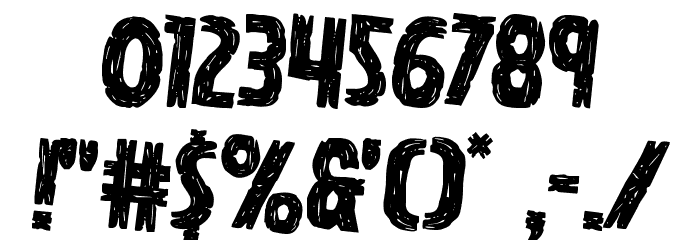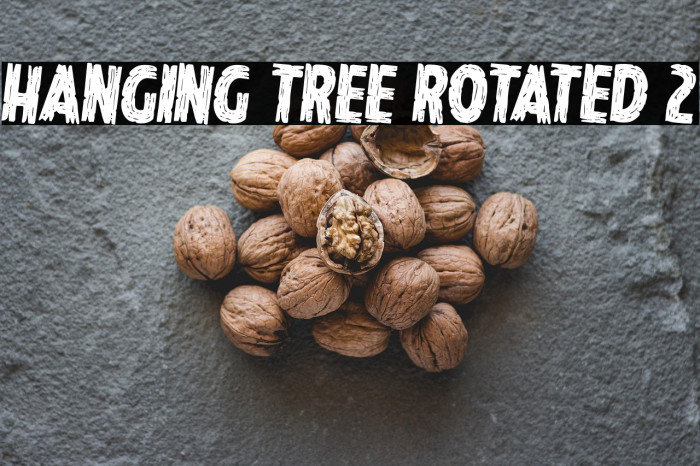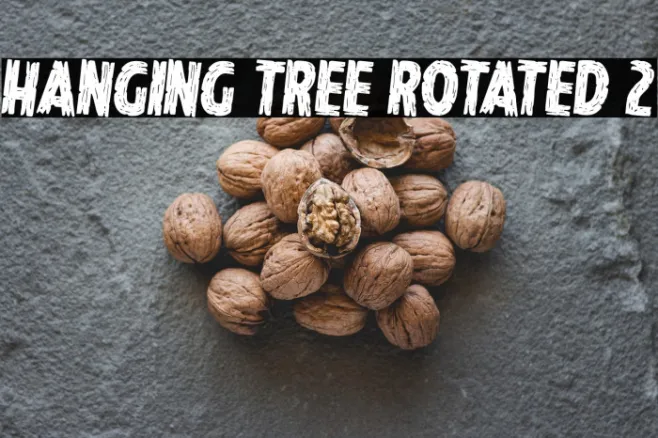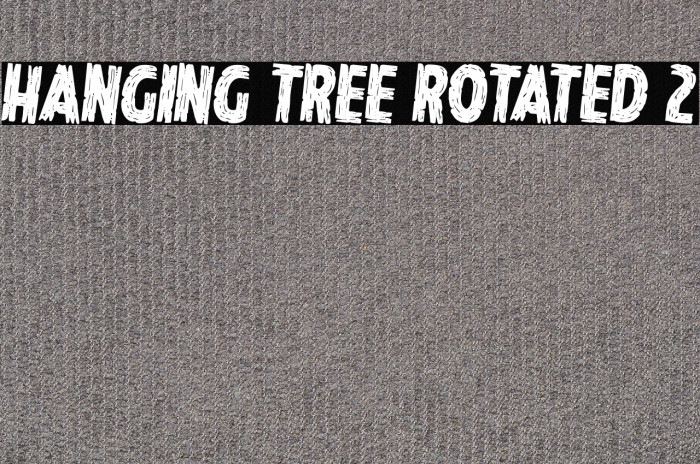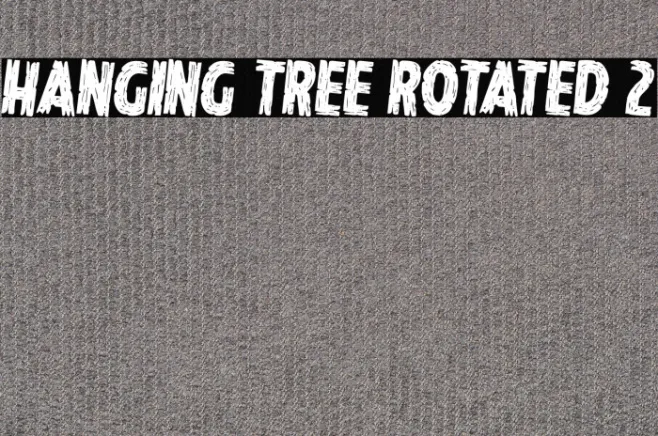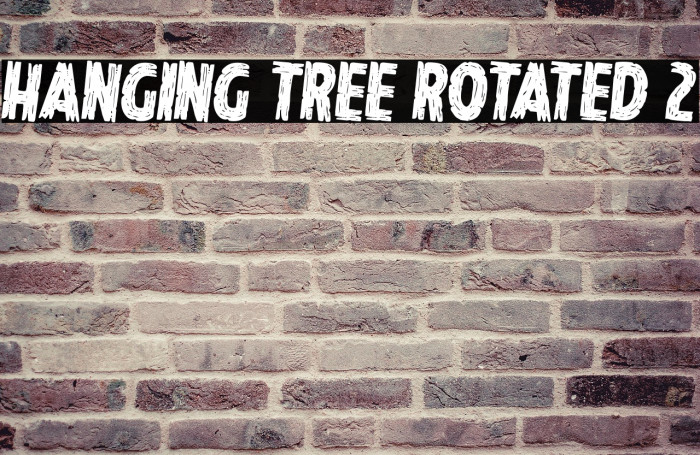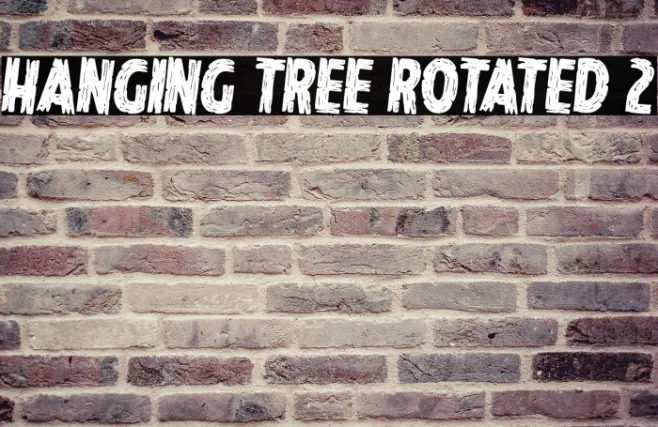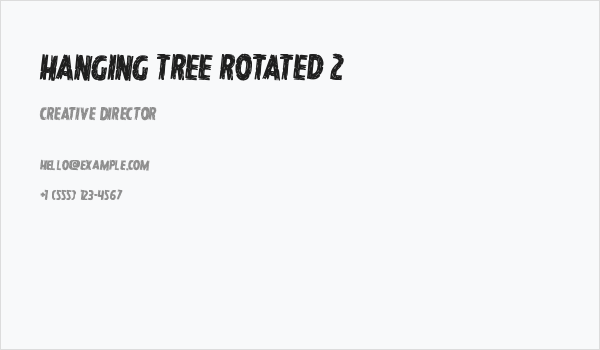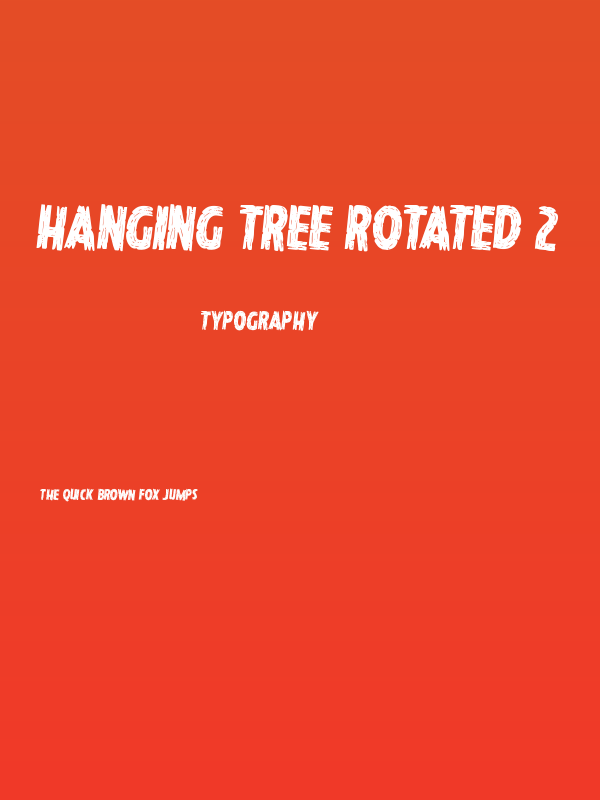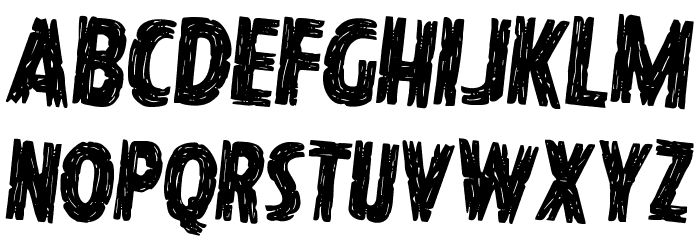
Hanging Tree Rotated 2 Font
Hanging Tree Rotated 2 Description
This font features a bold and distressed style, characterized by rough, uneven strokes that give it a hand-drawn appearance. The letters are thick and slightly slanted, with a texture that suggests a worn or weathered look. The uppercase and lowercase letters maintain a consistent style, while the numbers and special characters complement the overall rugged aesthetic. This font's unique design makes it stand out, offering a sense of dynamism and energy.
| Proposed Projects | Ideal for projects requiring a bold statement, such as posters, album covers, or branding for edgy or alternative products. |